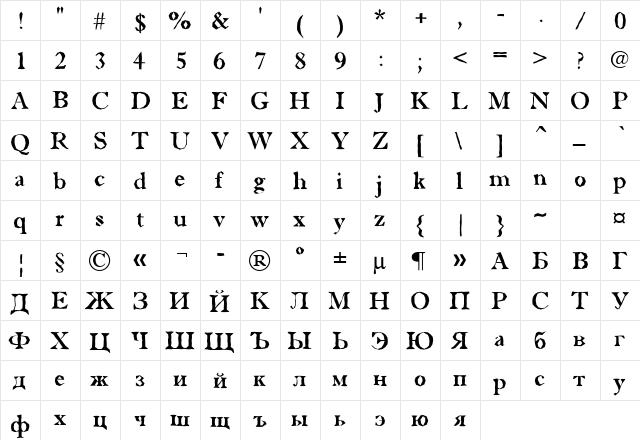
a_AntiqueTradyBrk Regular
Design Context for a_AntiqueTradyBrk Typeface
a_AntiqueTradyBrk wears its vintage influences proudly, with letterforms that recall mid-century signage, classic packaging, and nostalgia-driven design.
Font Pairing: Combine a_AntiqueTradyBrk with a simple slab or neutral sans — period-accurate companions reinforce the vintage feel without competing for attention.
Pro Tip: Use a_AntiqueTradyBrk for headlines and pull quotes rather than body copy — its personality is best appreciated in short, focused bursts.